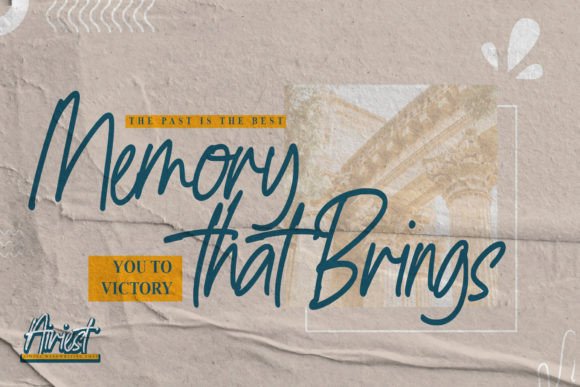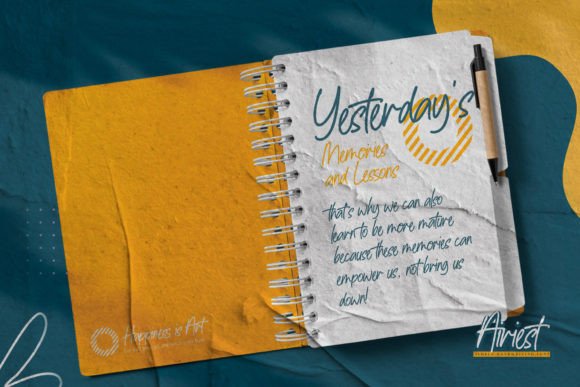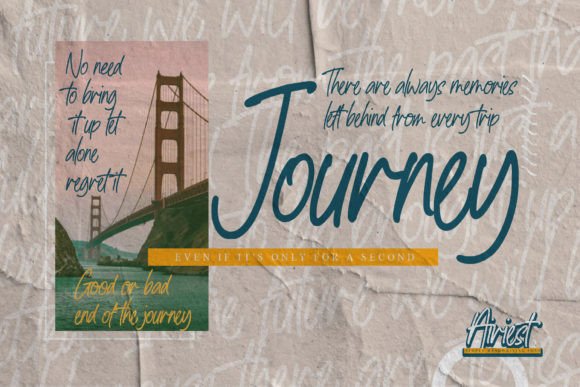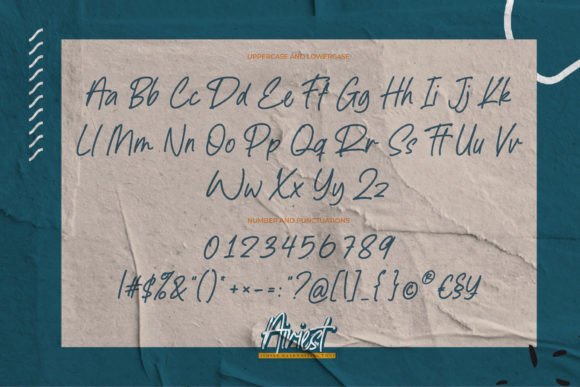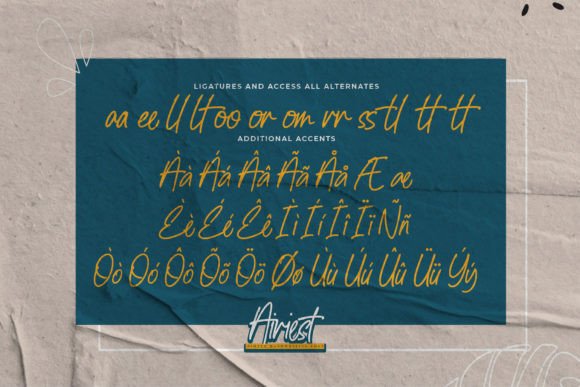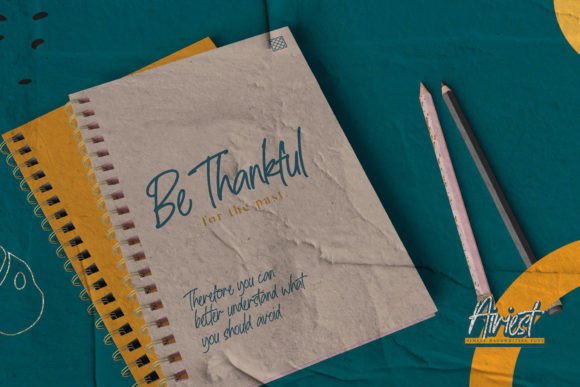
Airiest Font
About Airiest Font
Introducing Airiest, a simple and natural handwritten font perfect for a wide range of applications, including invitations, logos, book covers, crafts, quotes, sporty themes, logotypes, wordmarks, and more. Masterfully designed to become a true favorite, this font has the potential to elevate each of your creative ideas to the highest level.
What makes Airiest special is its simplicity and natural charm. The handwritten style imparts authenticity and a sense of ease, making it versatile for various design contexts. Imagine Airiest enhancing your invitations, where it adds a personal and approachable touch to the event. Picture it in logos or wordmarks, where it introduces a casual and friendly vibe.
The adaptability of Airiest allows it to shine across different design applications. Whether used for print or digital media, this font adapts seamlessly, contributing to the visual appeal of your projects. Its simple and natural design makes it a font that adds a touch of warmth and authenticity to your creative endeavors.
Visualize Airiest becoming an integral part of your creative toolkit, bringing your projects to the highest level of appeal. Envision it on book covers, where its simplicity adds a touch of elegance and readability. Its versatility and natural charm make Airiest a font that brings a special and effortless touch to your designs.
In conclusion, Airiest is not just a font; it’s a simple and natural design asset that enhances the beauty of your creative projects. Download it today and experience how it transforms your invitations, logos, book covers, and more into expressions of authenticity and simplicity. Make Airiest a cherished addition to your font collection, and let it be the key to unlocking a world of creativity and natural charm in your designs!